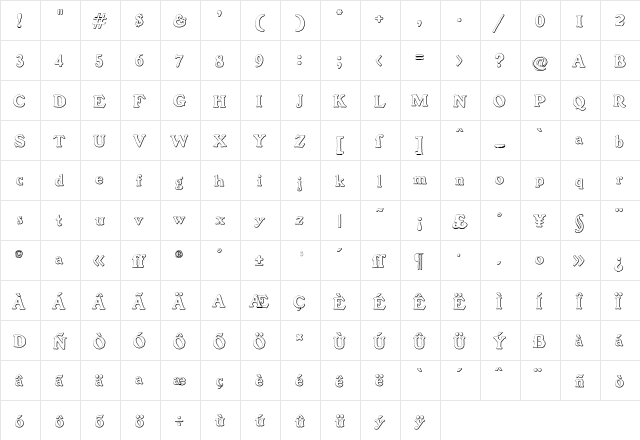
BenjaminFranklin Beveled Regular
Design Context for BenjaminFranklin Beveled Typeface
BenjaminFranklin Beveled offers clean, dependable letterforms without strong stylistic allegiance, making it a practical choice for designers who need flexibility.